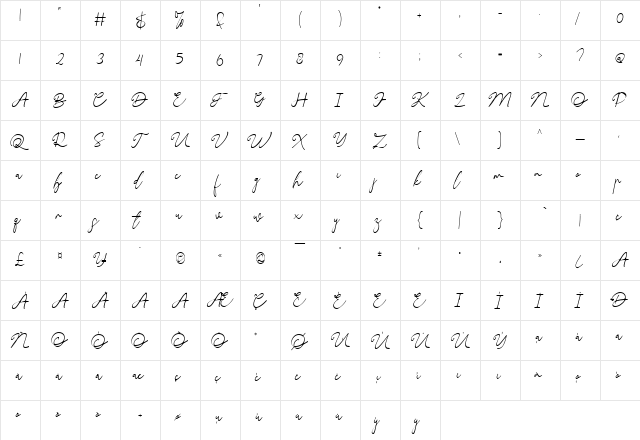
Spring Beauty Regular
| Foundry | Randi Ilhamsyah // VzType |
| Designer | Randi Ilhamsyah // VzType |
Design Context for Spring Beauty Typeface
Spring Beauty is a composed and adaptable typeface that performs quietly and consistently across a wide range of design contexts.